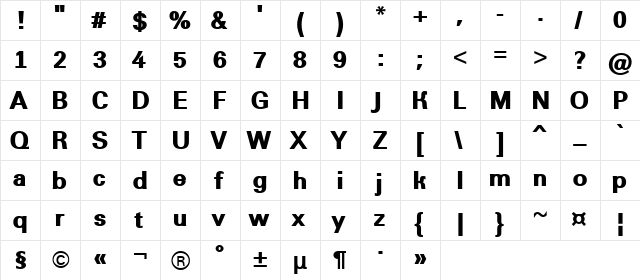
a_GroticExtraBold Regular Font Preview
a_GroticExtraBold Regular
Design Context for a_GroticExtraBold Typeface
a_GroticExtraBold takes a measured approach to typography — its balanced proportions and neutral character make it a reliable workhorse for both digital and print work. The heavy weight commands attention and anchors typographic hierarchies.